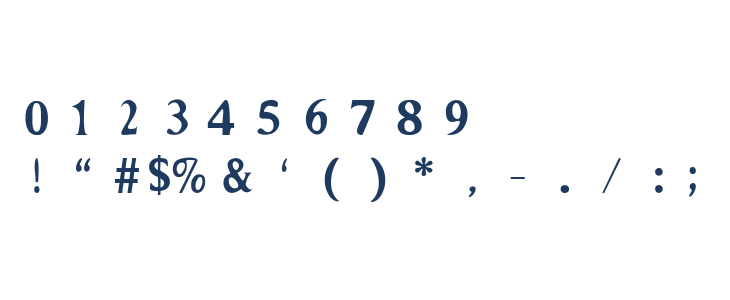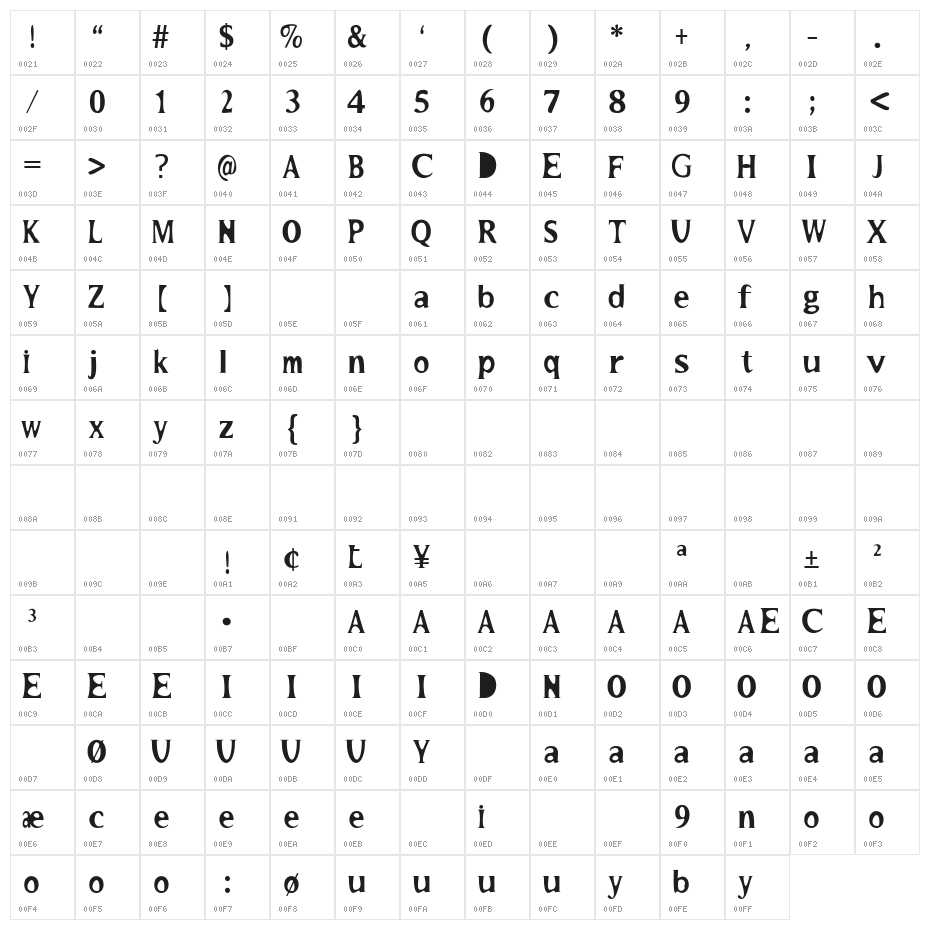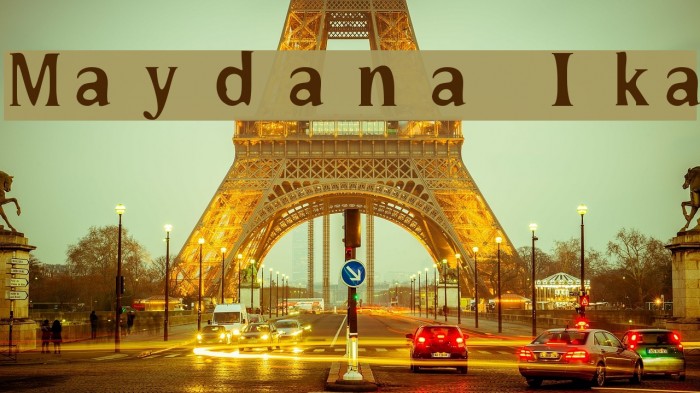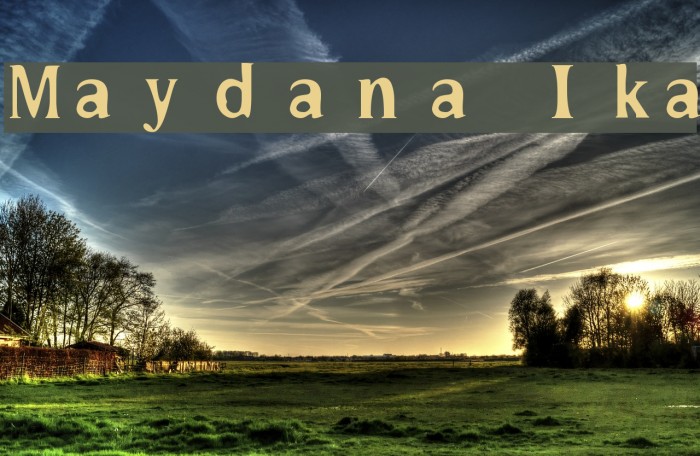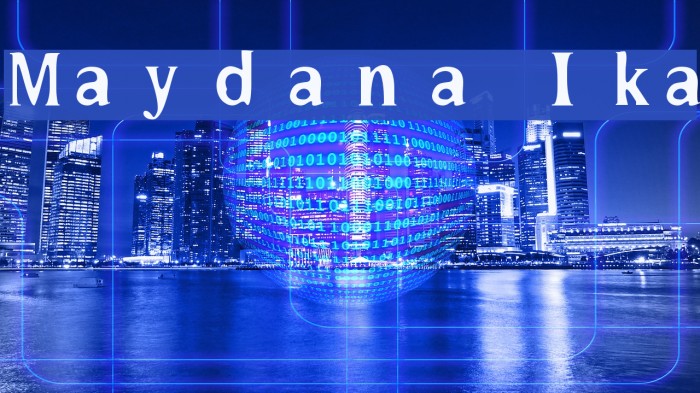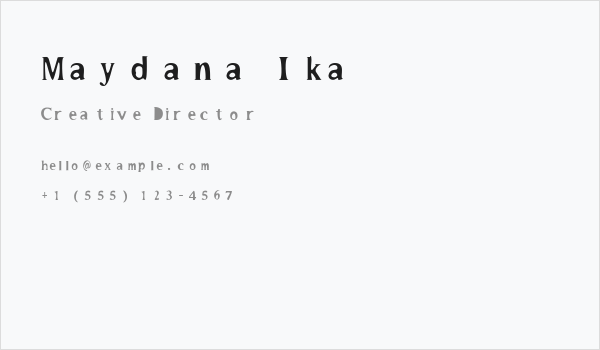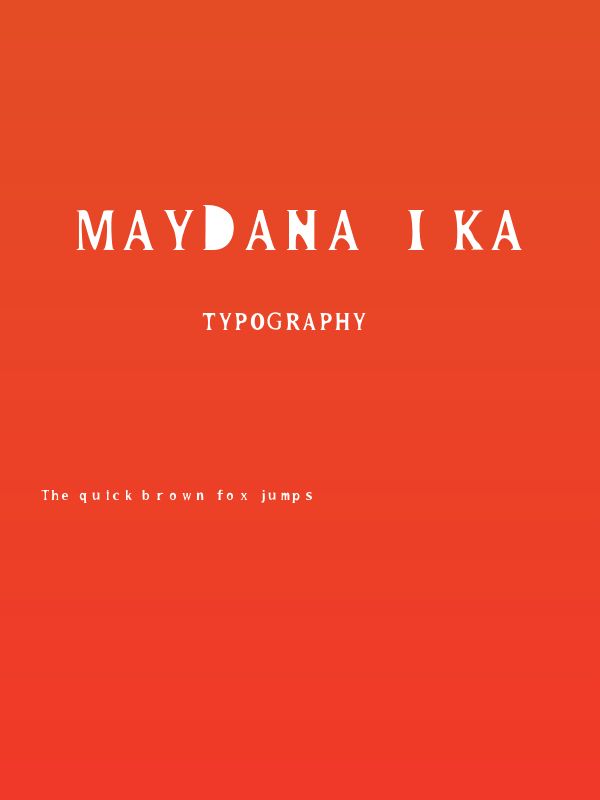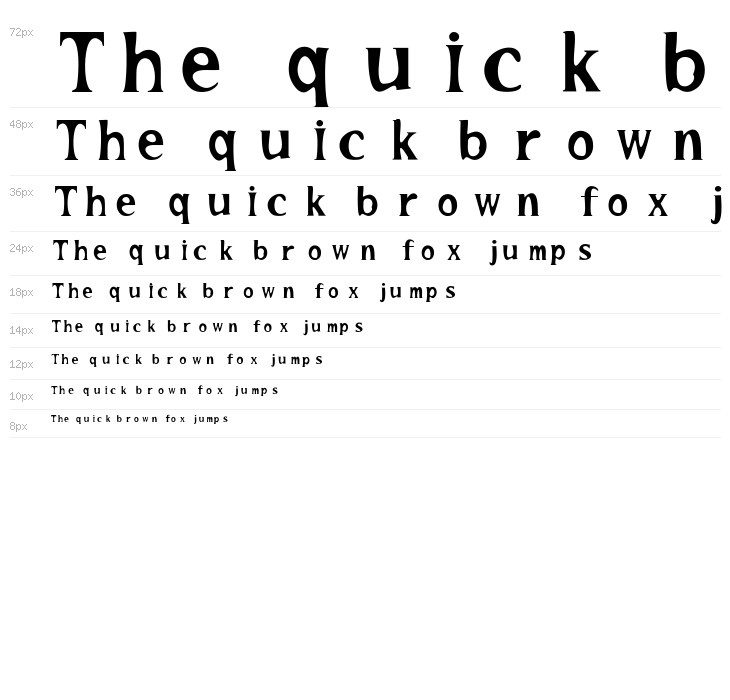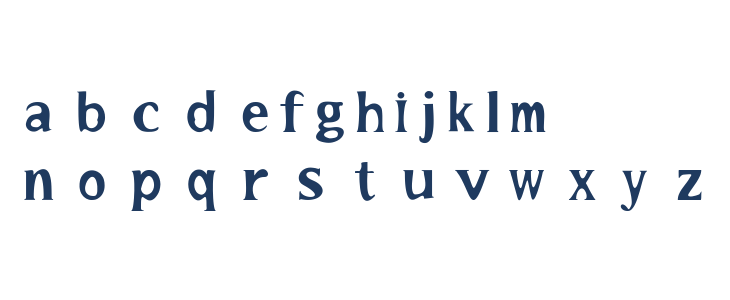
Maydana Ika Font
Maydana Ika Description
This font features a bold and dynamic style with high contrast between thick and thin strokes, giving it a dramatic and eye-catching appearance. The uppercase letters are particularly striking, with unique shapes that add a sense of movement and energy. The lowercase letters maintain a consistent style, complementing the uppercase with their own flair. The numerals are bold and clear, ensuring readability. Special characters are designed with the same attention to detail, making them stand out. Overall, this font combines traditional serif elements with a modern twist, making it versatile for various design needs.
| Proposed Projects | Ideal for headlines, posters, branding, and editorial design where a strong visual impact is desired. |